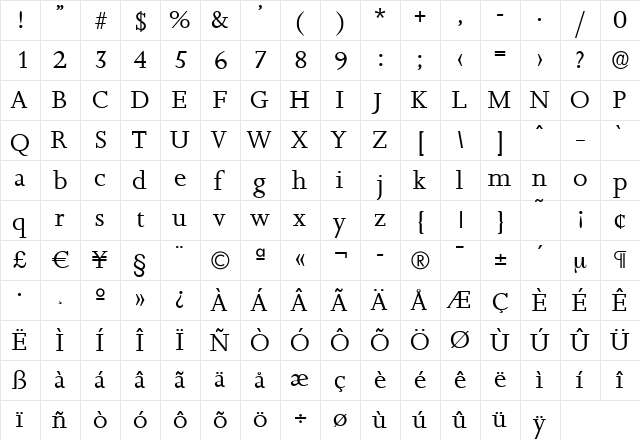
JessicaBecker Regular Font Preview
JessicaBecker Regular
Design Context for JessicaBecker Typeface
JessicaBecker offers clean, dependable letterforms without strong stylistic allegiance, making it a practical choice for designers who need flexibility.